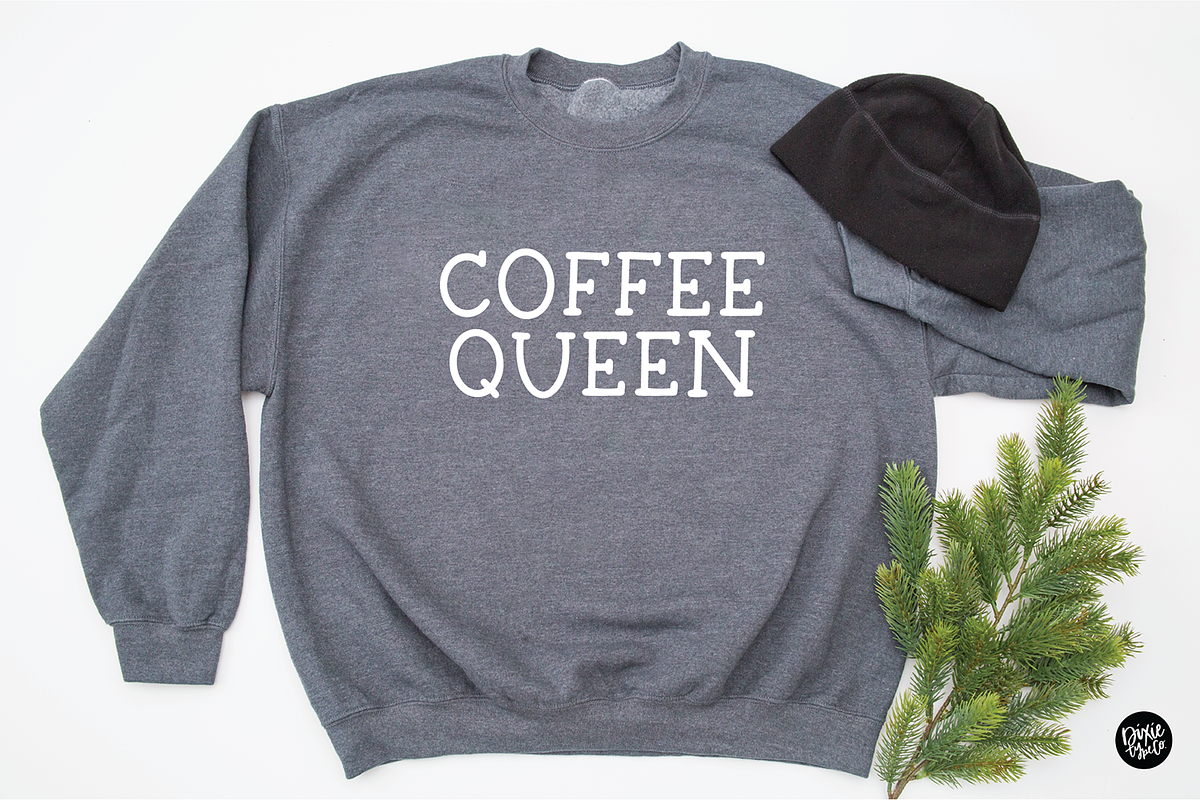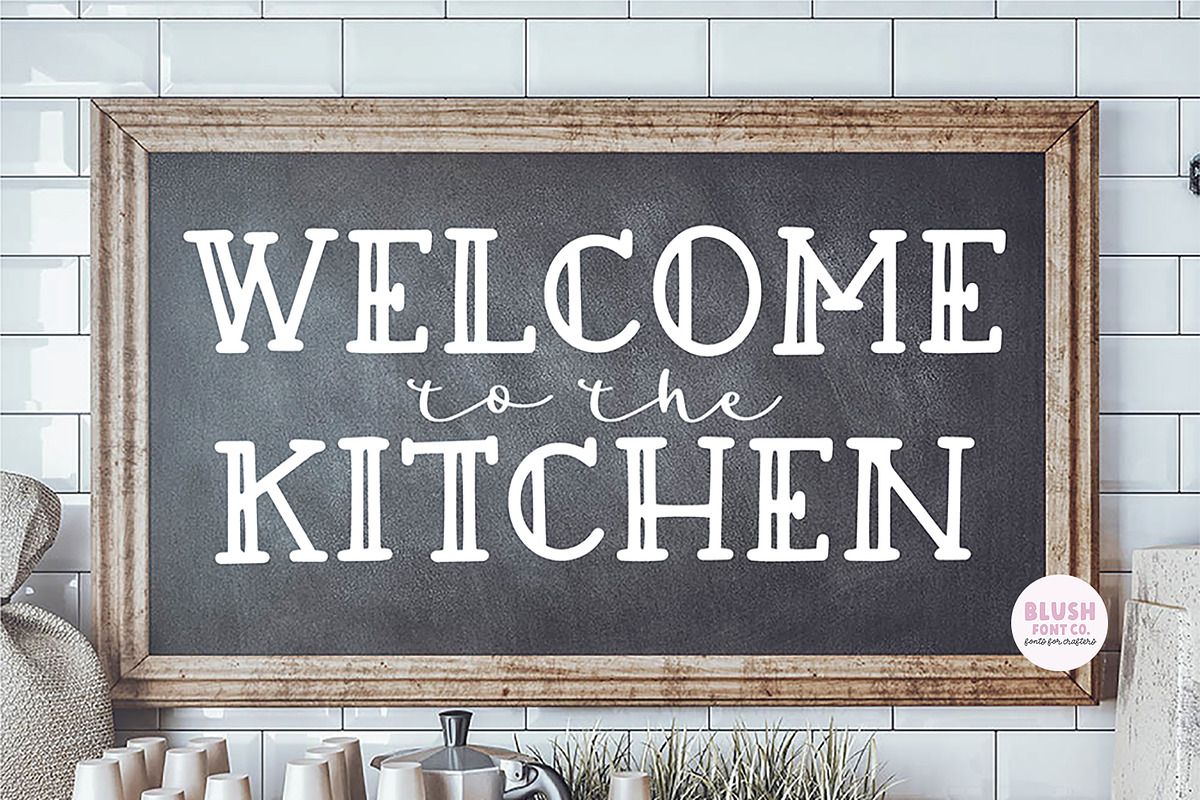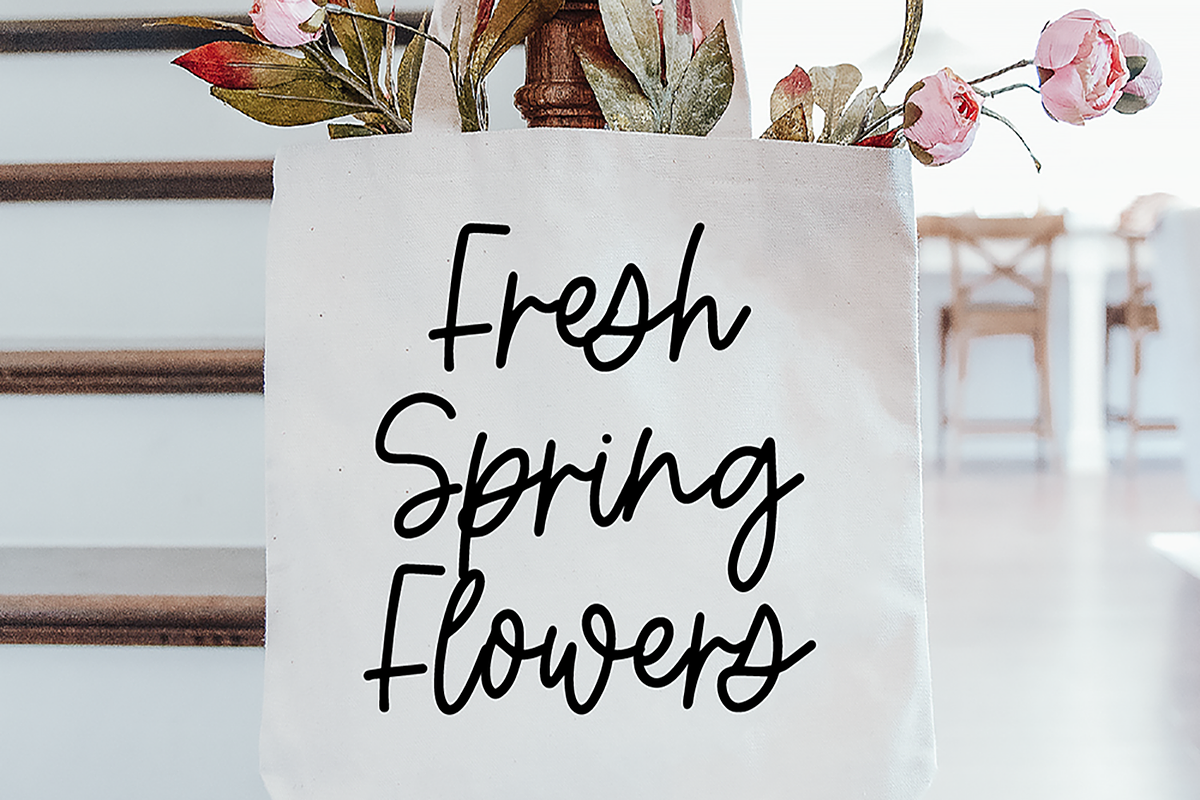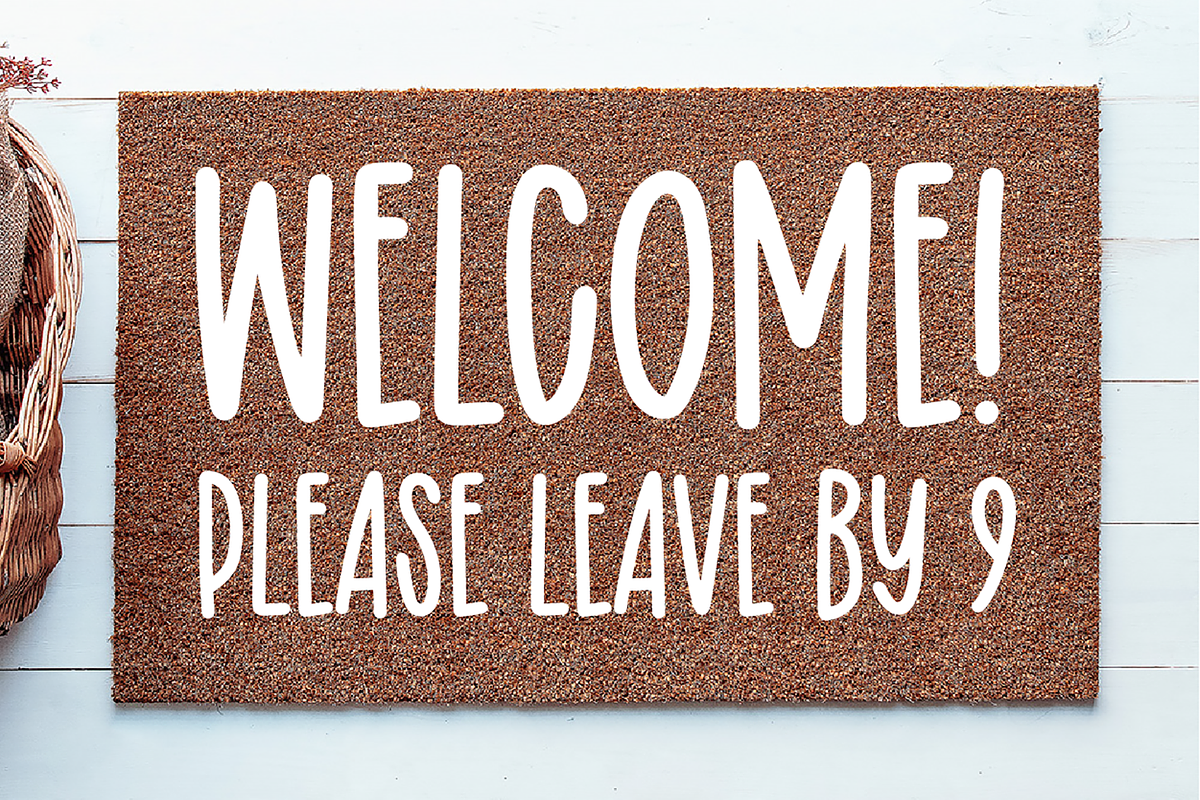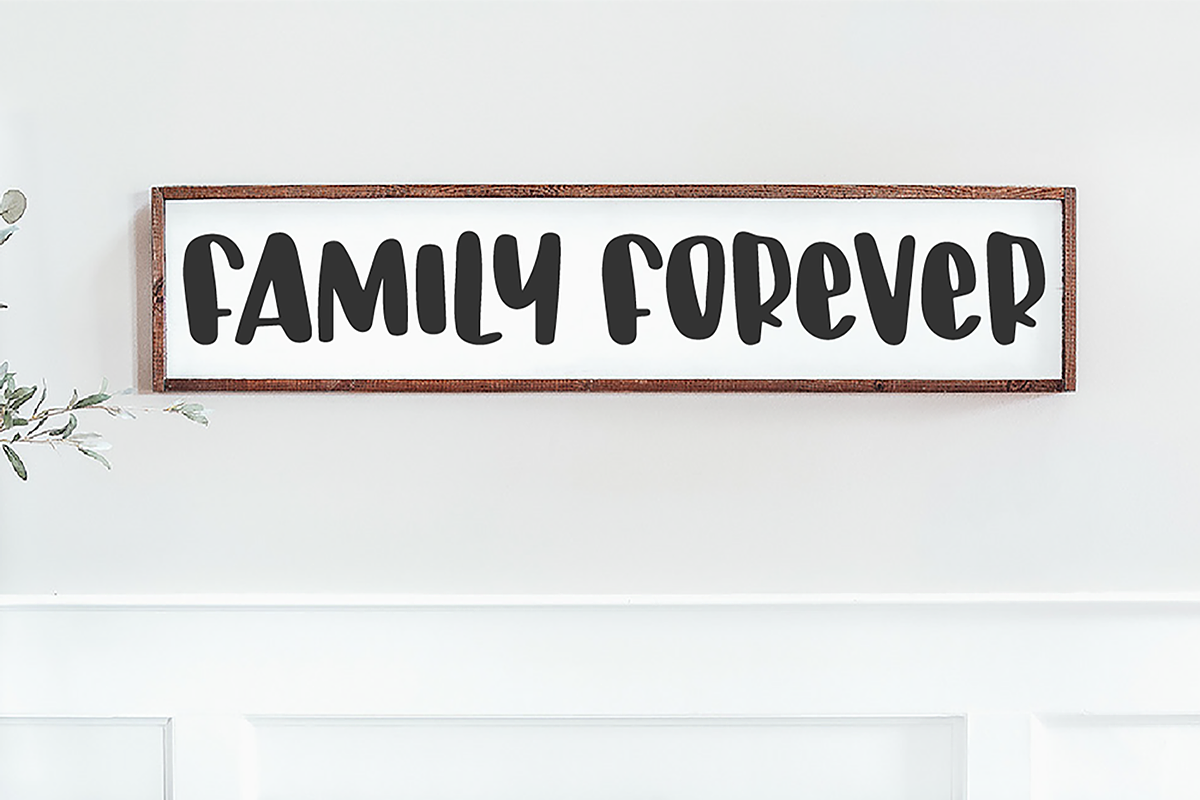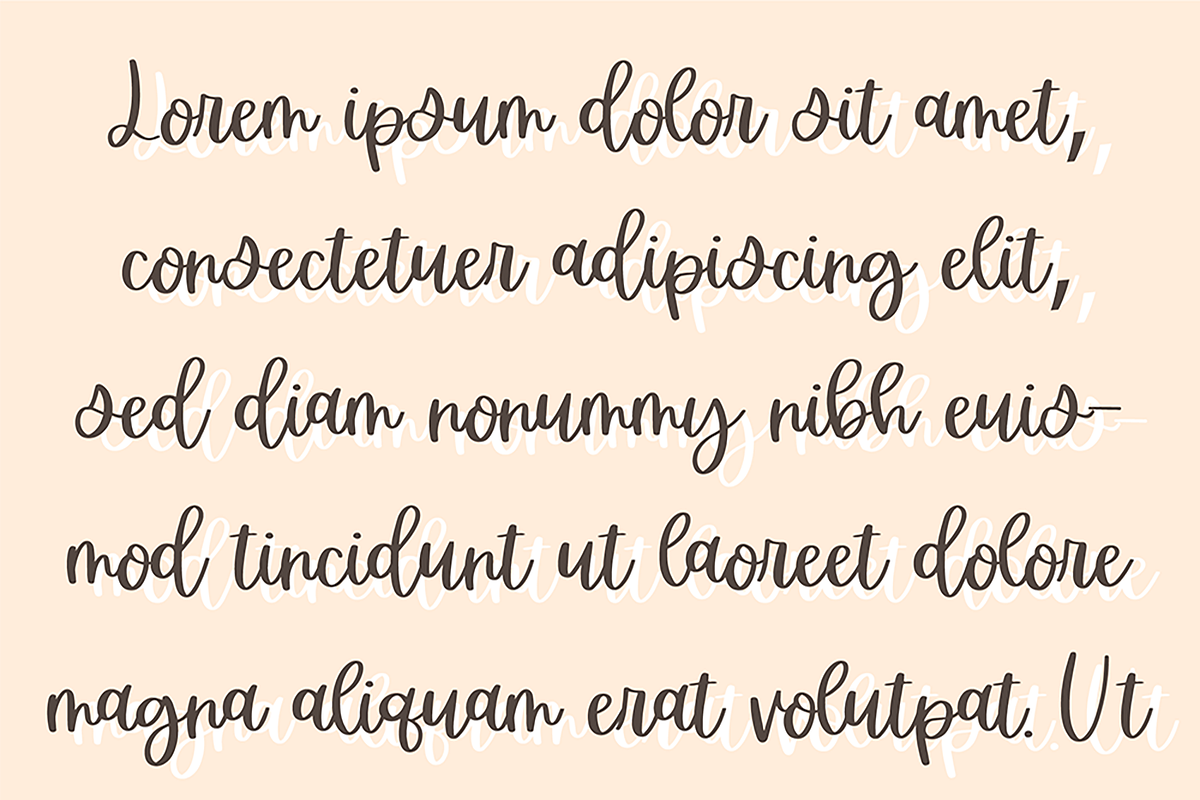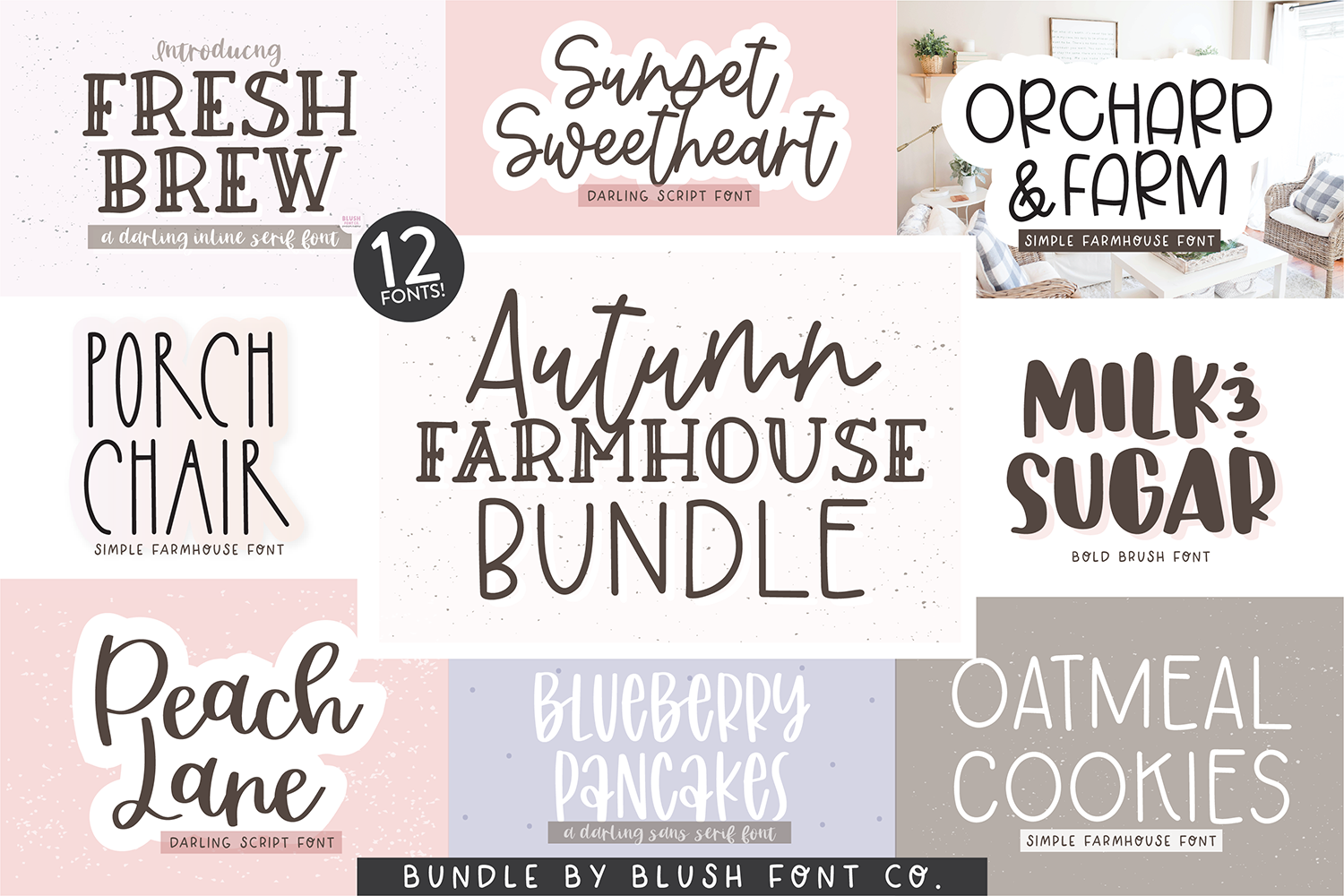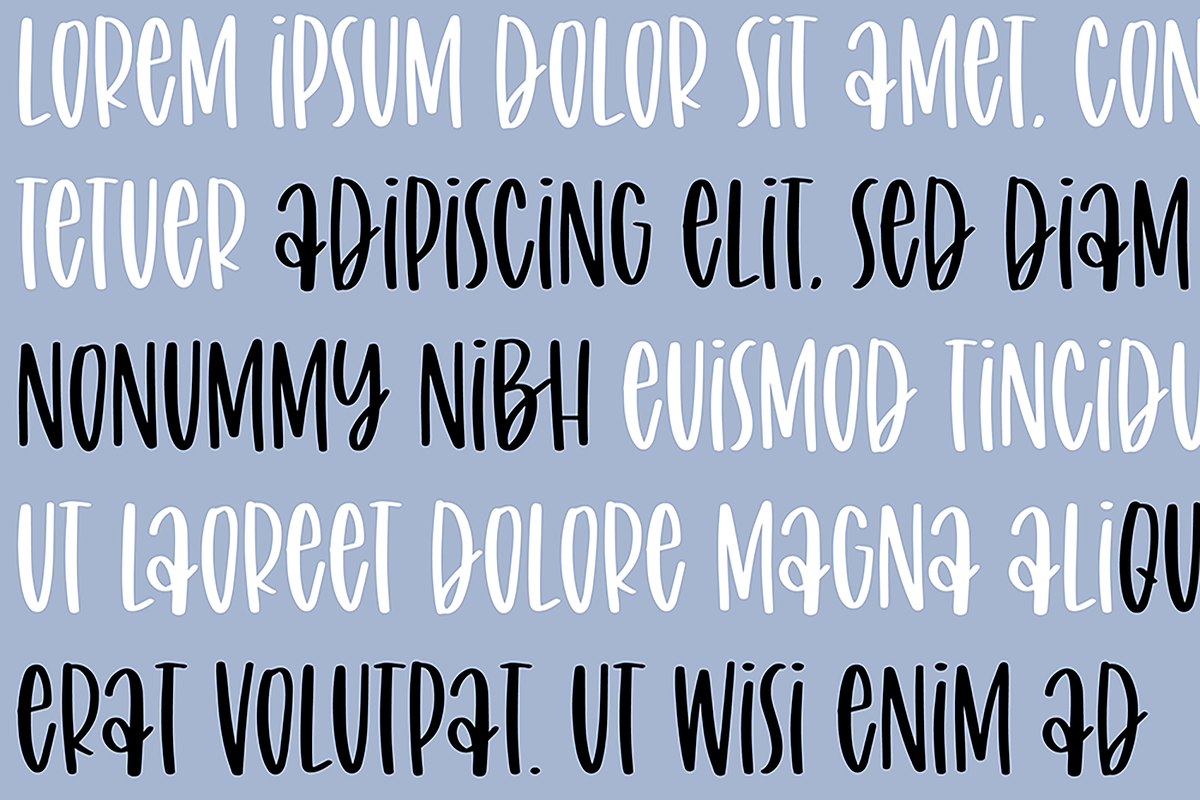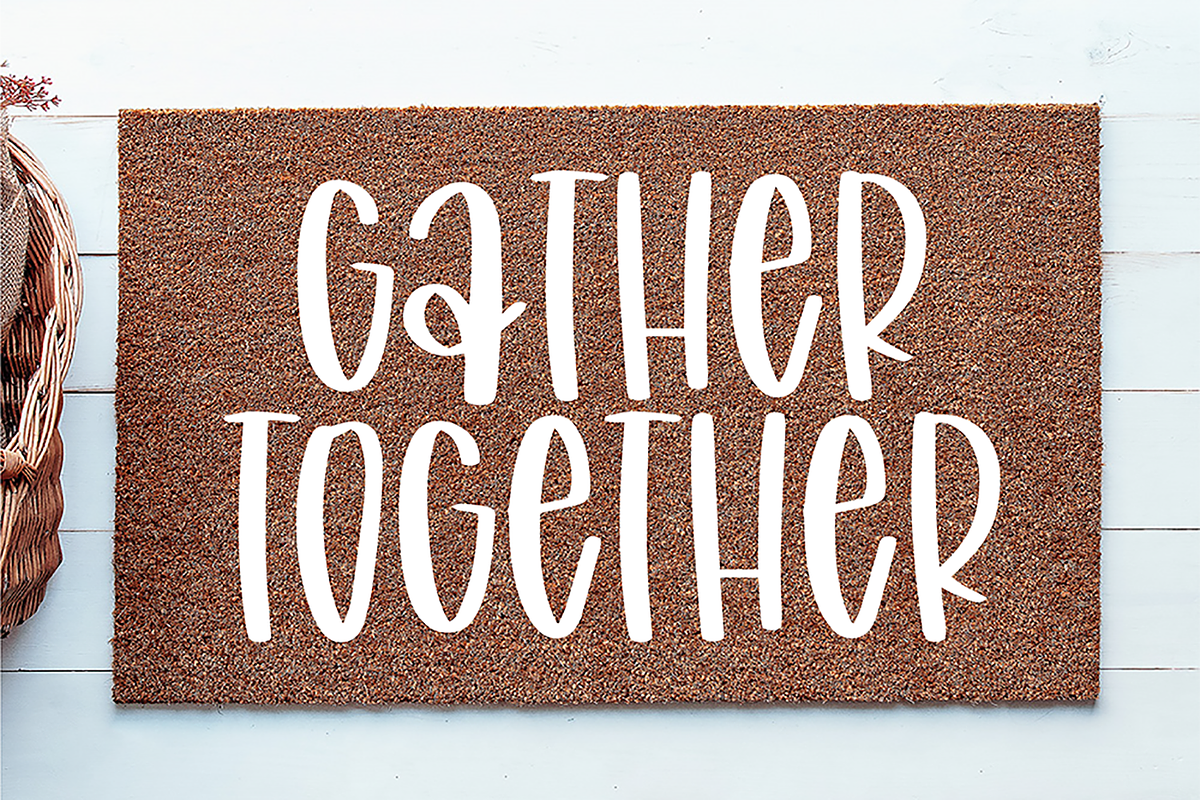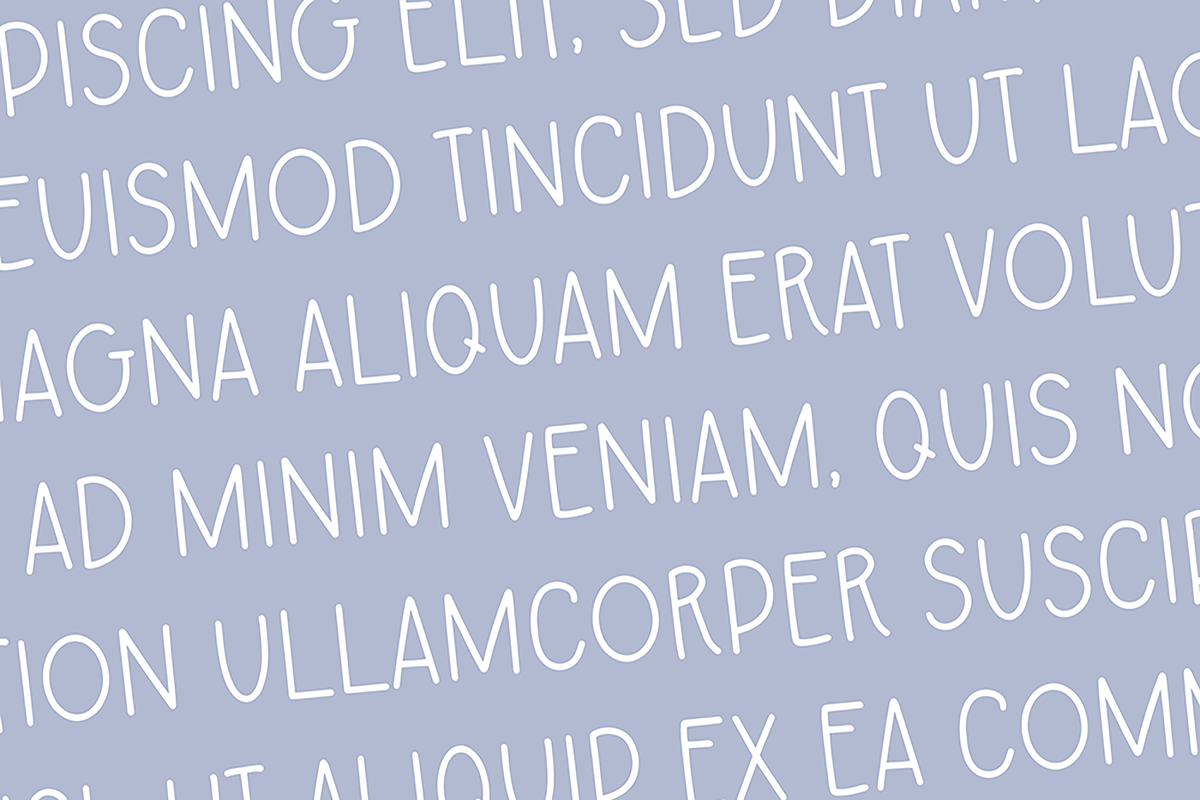
AUTUMN FARMHOUSE FONT BUNDLE
AUTUMN FARMHOUSE BUNDLE - 12 FONTS!
These fonts were all hand-lettered with a brush and ink, or iPad Pro.
The 12 fonts included are:
Orchard & Farm Fresh Brew Oatmeal Cookies Rustic Cherry Peach Lane Barn Acre Porch Chair Laundry Monday Kitchen Pantry Blueberry Pancakes Sunset Sweetheart Milk & sugar